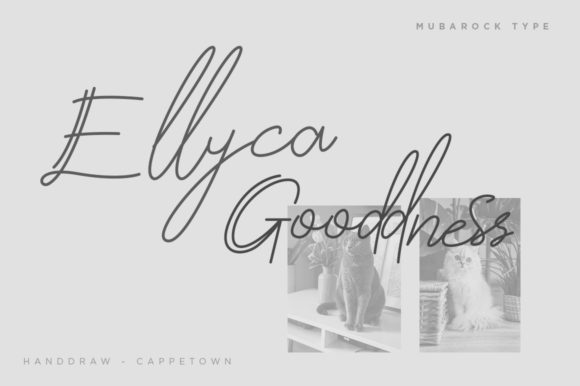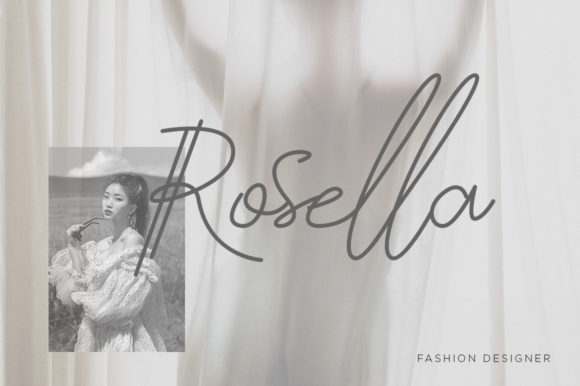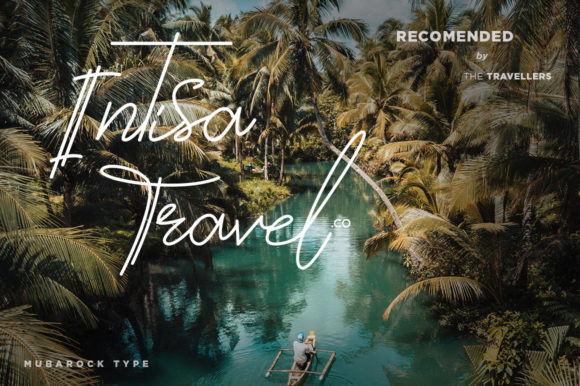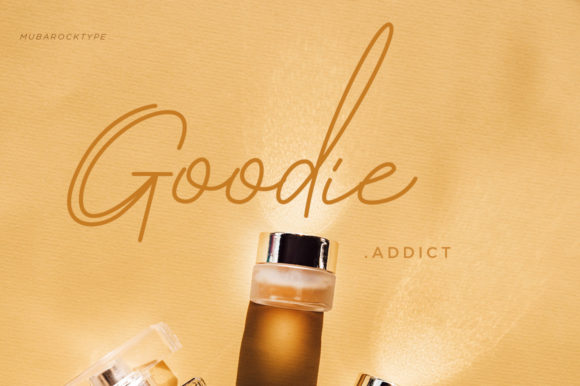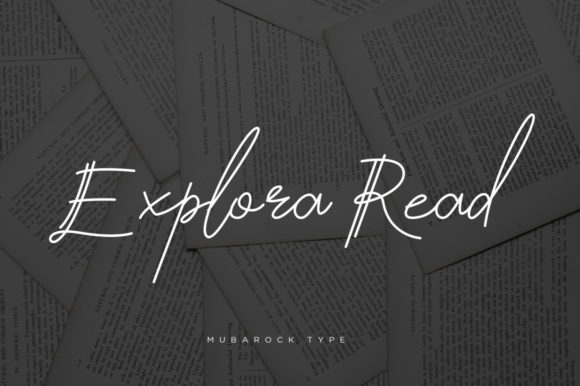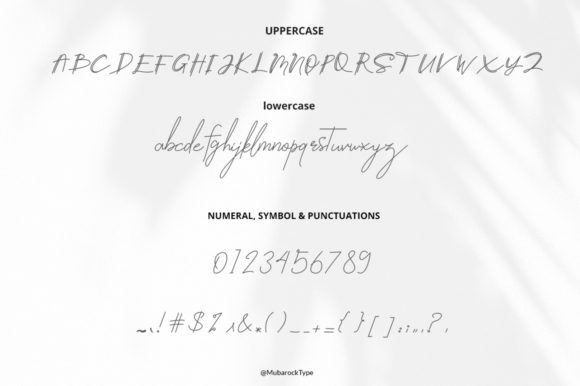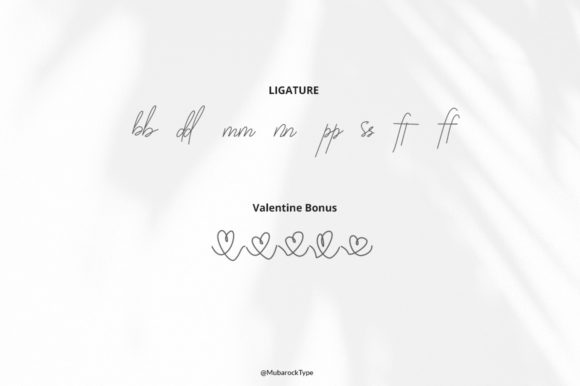
Capetown Font
About Capetown Font
“Capetown” is a delicate and nuanced handwritten font, meticulously crafted to ensure exceptional outcomes. Infused with a touch of sweetness, this font exudes subtlety and charm. Its careful design aims for maximum impact. When applied, it introduces an air of elegance and sophistication that gracefully enhances any design project it graces.
The intricacies of “Capetown” reflect the attention and care poured into its creation. Each stroke and curve speaks to the pursuit of achieving the perfect balance between aesthetics and readability. This font serves as a testament to artistic dedication, where every detail contributes to the overall visual experience.
The versatility of “Capetown” is noteworthy, as it seamlessly blends into various design contexts. Whether employed in formal invitations, branding materials, editorial designs, or any creative endeavor seeking a touch of refinement, this font effortlessly adds a layer of class and sophistication that resonates with discerning audiences.
Incorporating “Capetown” into your projects not only infuses them with a sense of understated elegance but also showcases an appreciation for the finer aspects of design. With its subtle charm, this font has the ability to enhance the visual allure of your work, leaving a lasting impression of sophistication and craftsmanship.